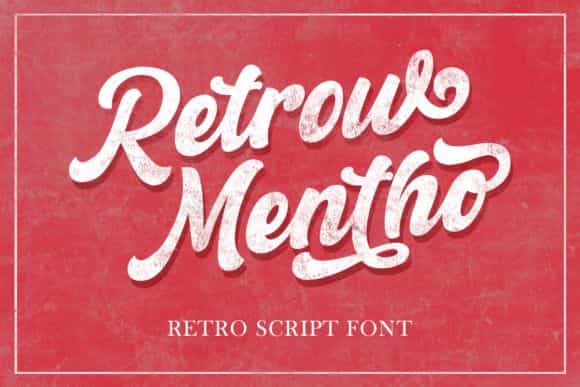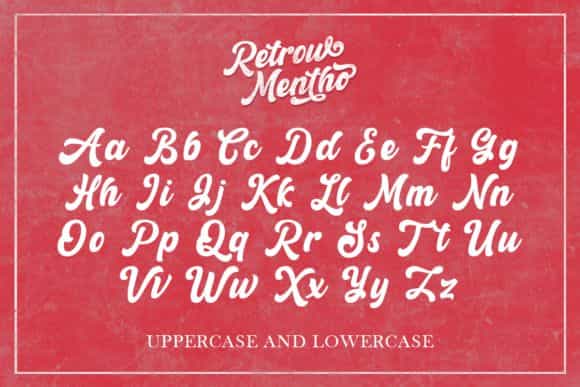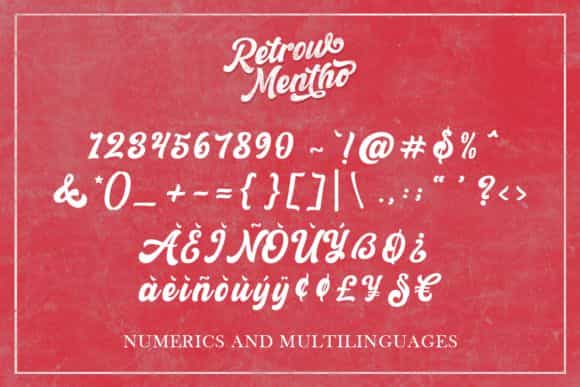
Retrow Mentho comprises retro script fonts developed through lettering techniques. Perfect, for logo design, brief text elements and printed materials this font set features uppercase and lowercase alphabets, numbers, common symbols, alternates, swashes and ligatures.